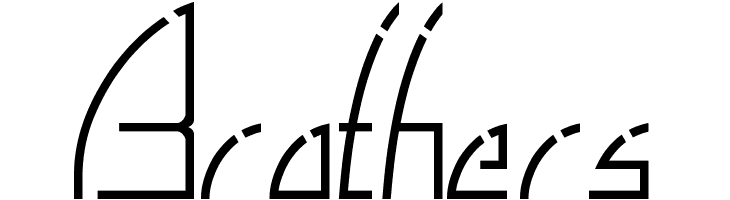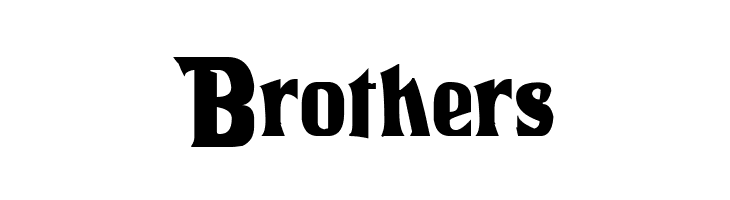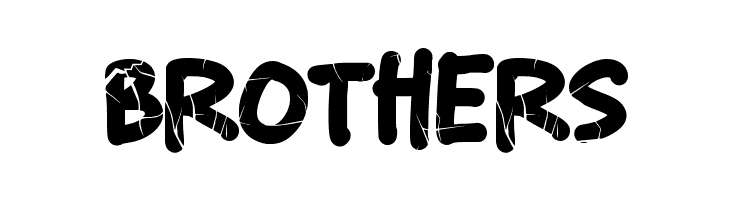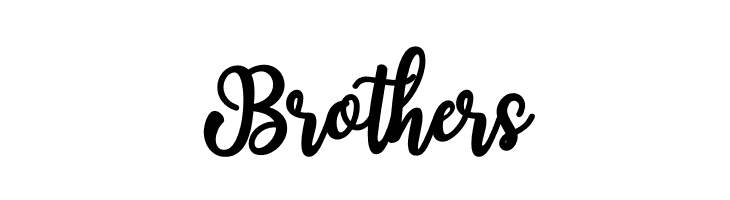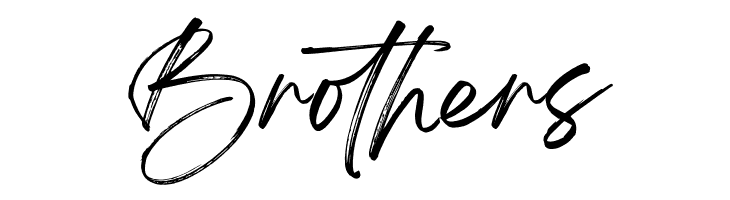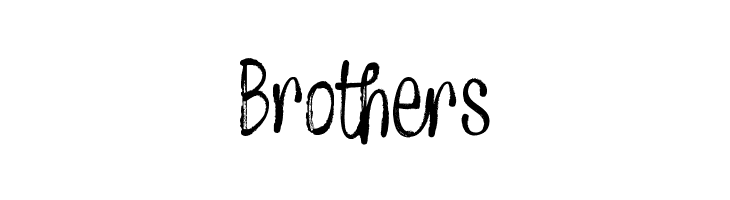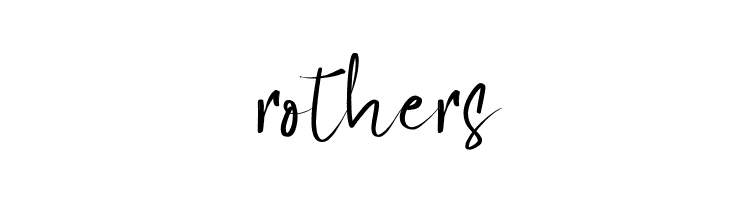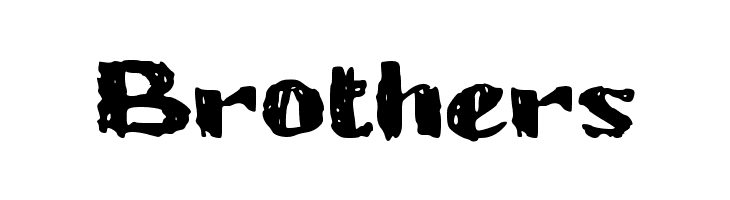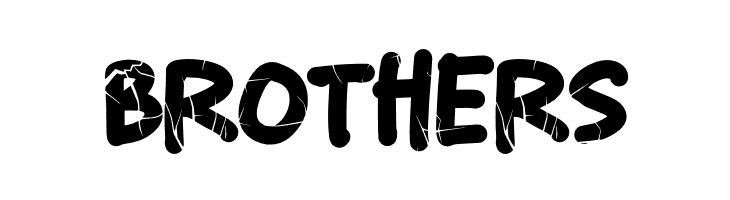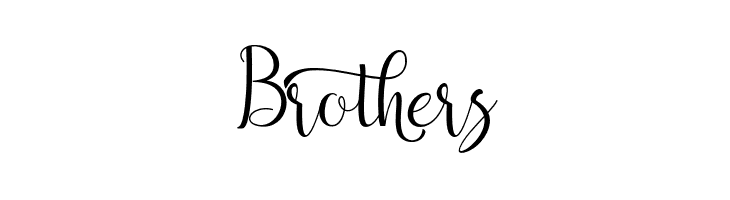
• Breakfast Sweety
A playful, rounded font with smooth curves and a friendly appearance.
• BreakFill-Bold
A modern, rounded font with geometric structure and uniform stroke width.
• BreakFromToronto
A playful, hand-drawn font with tall, narrow characters and a monoline style.
• Breaking
A bold, playful handwritten font with thick strokes and a casual, dynamic style.
• Breaking Abuse
A bold, distressed font with a rugged, brush-painted appearance.
• Breaking Dawn Demo
A playful, whimsical font with tall, narrow letterforms and subtle curves.
• Breaking Glass
A dynamic and expressive handwritten font with fluid, organic strokes.
• Breaking News Regular
A classic serif font with high contrast and sharp serifs, exuding elegance and authority.
• Breaking Stencil News
Bold, industrial stencil font with geometric shapes and separated strokes.
• Breaking The Comic
A bold, distressed font with a cracked texture for an edgy look.
• Breaking The Comic
A bold, distressed comic-style font with playful, jagged edges.
• Breaking Wild
A bold, brush-style script with an energetic, hand-painted look.
• Breaking Wild
A bold, brush-style font with dynamic, energetic strokes.
• BreakingNews
A bold, italicized font with a strong slant and high contrast, perfect for dynamic headlines.
• BreakingTime!
• Breakiss
A bold, hand-drawn font with a rough, textured appearance and playful, informal style.
• Breakloft Free
An elegant, flowing script font with delicate, continuous strokes.
• BreakLoOp
A modern, angular font with a geometric and futuristic style.
• BreakOut
A lively handwritten font with expressive strokes and dynamic style.
• BreakPoint
A bold, brush script font with a textured, hand-painted appearance.
• BREAKSTEEL